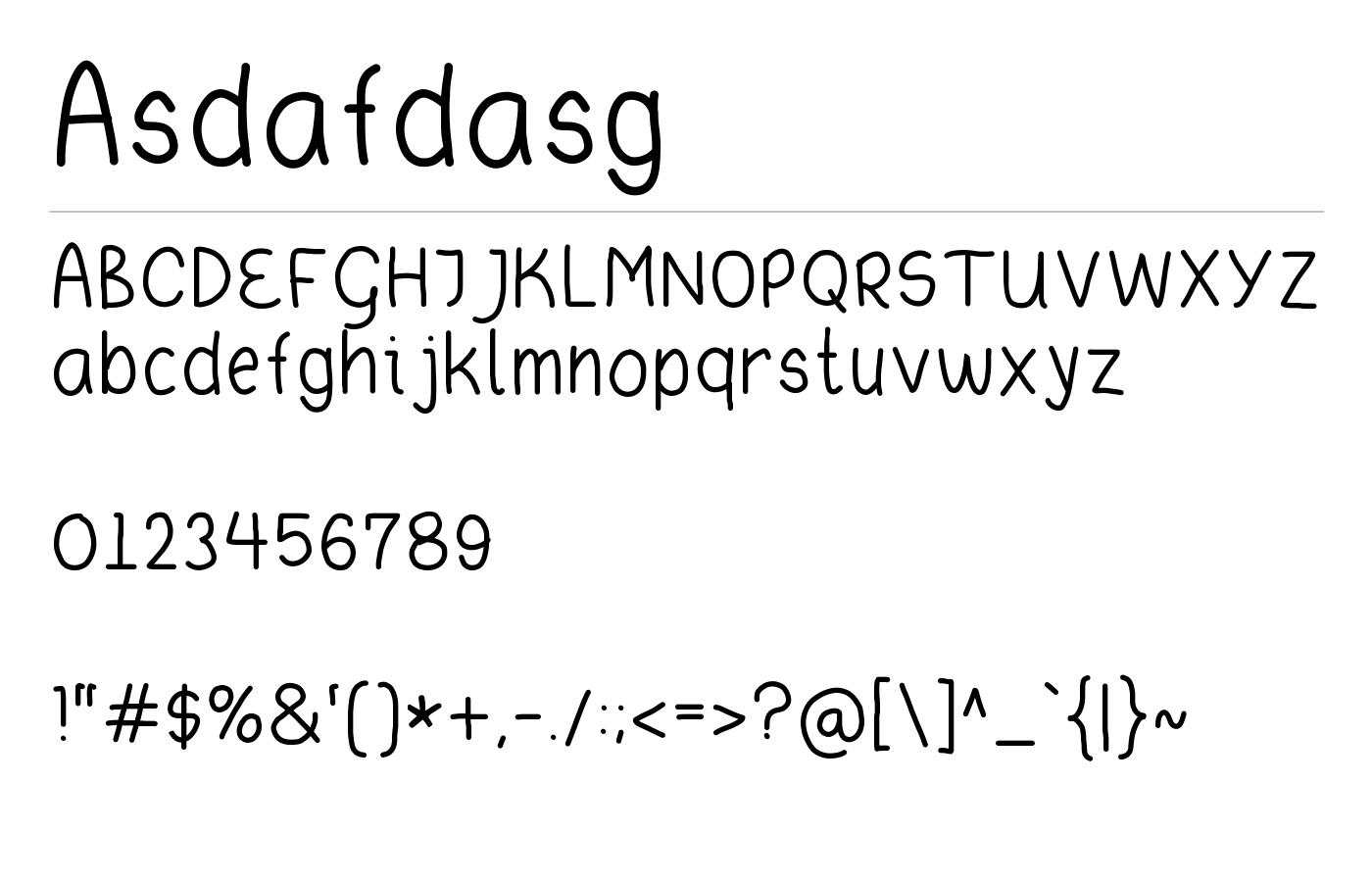
Asdafdasg Font is a playful, informal sans serif typeface with a hand-drawn, slightly irregular style that gives it a casual and friendly feel. Its open, rounded letterforms and consistent light weight make it highly legible, ideal for creative projects, children's designs, and lighthearted branding. This font works best in headlines, invitations, and other display uses where a personal and approachable tone is desired.
Asdafdasg Font
About Asdafdasg Font